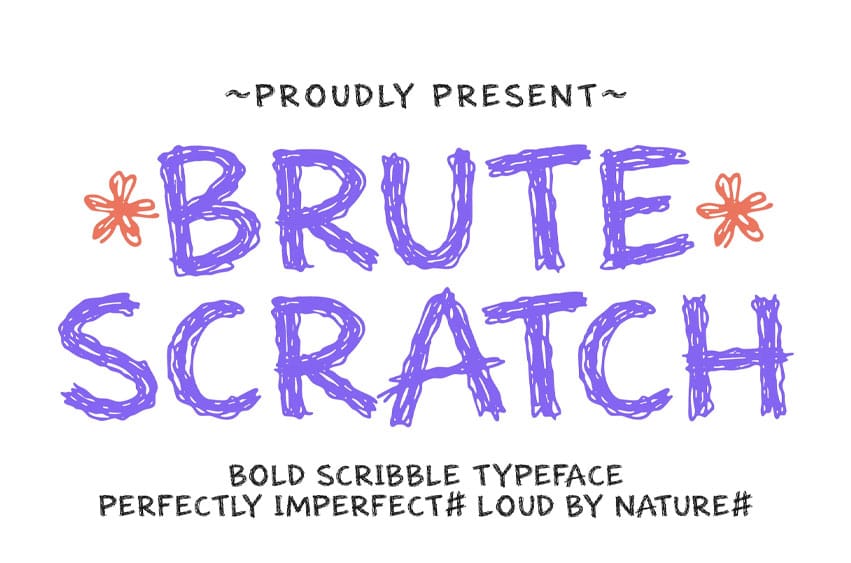
Brute Scratch Font Scribble Font is a bold hand-drawn typeface inspired by spontaneous doodles and imperfect sketch lines. Its layered strokes and rough texture create a playful, expressive character that feels loud, honest, and full of personality. The uneven construction adds charm while keeping each letter highly legible.
Designed for creatives who love authentic and energetic typography, this font works beautifully in attention-grabbing designs. From kids-themed visuals to edgy posters and social media graphics, it delivers a fun, carefree attitude with strong visual impact.